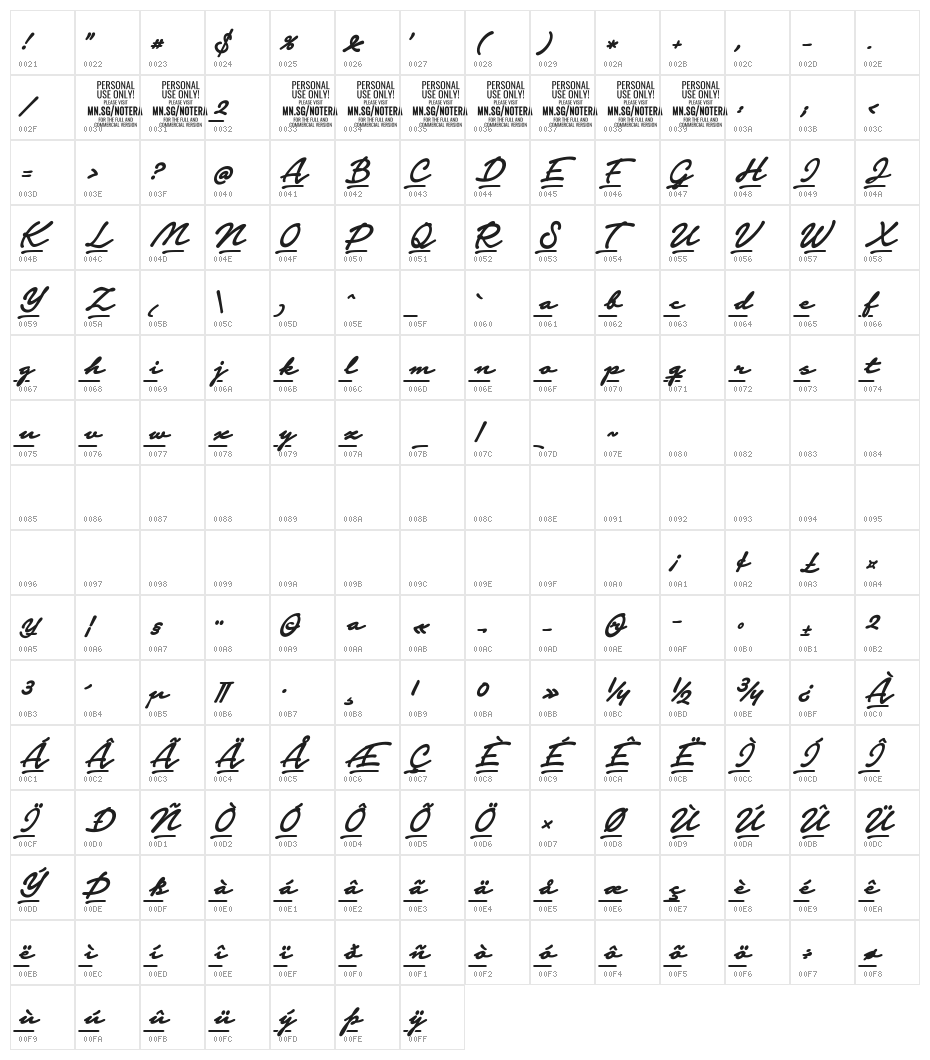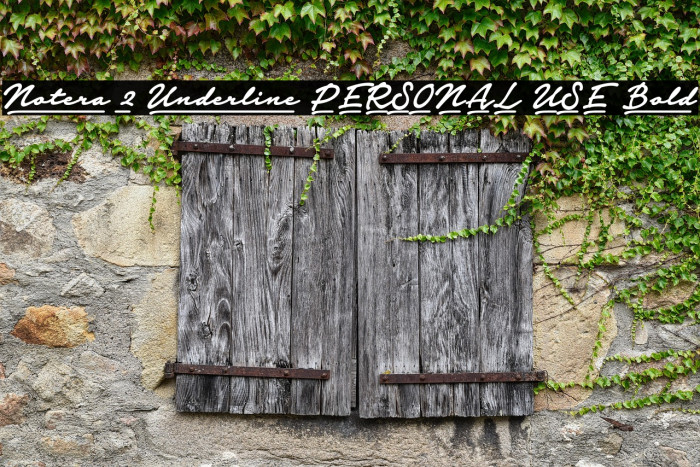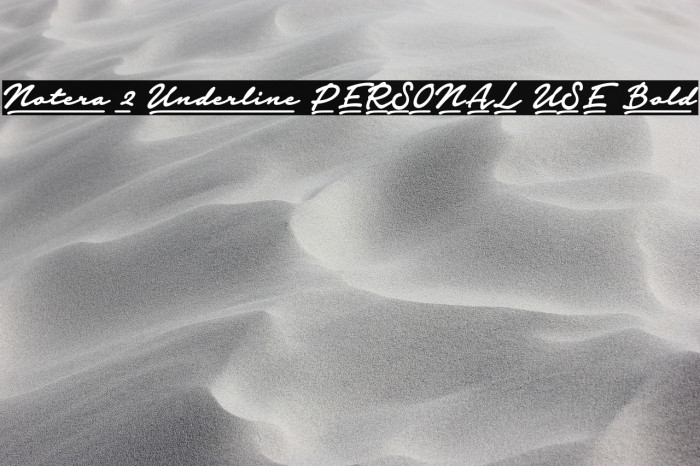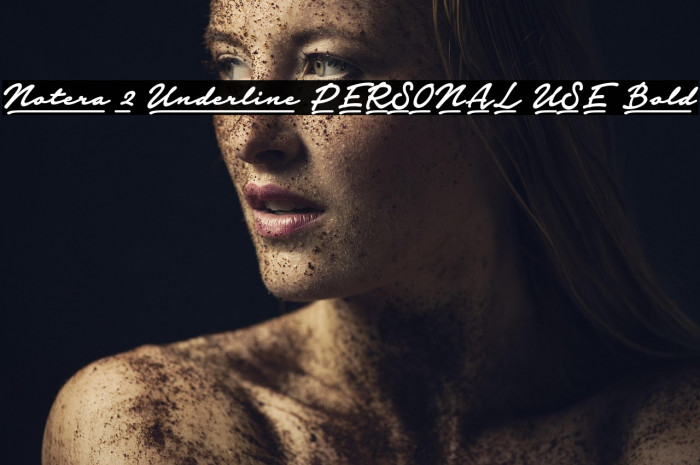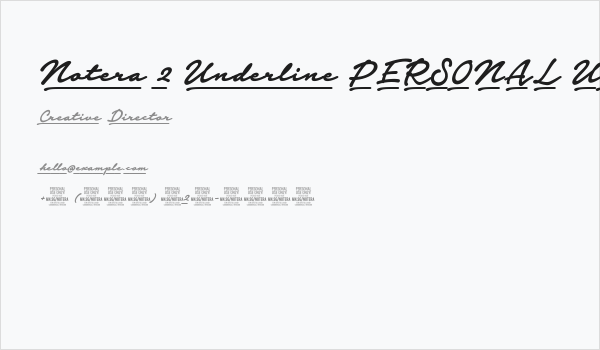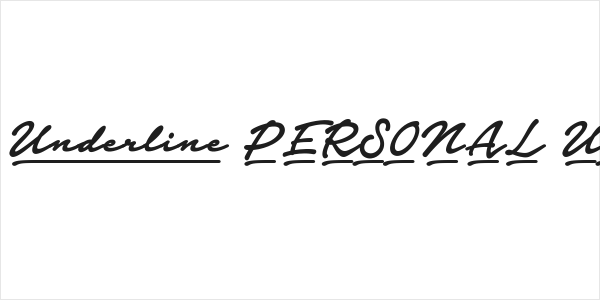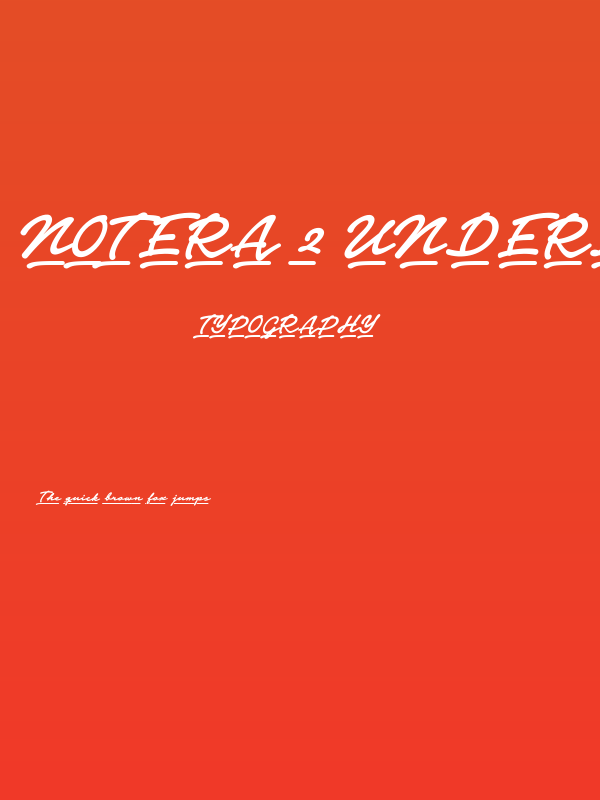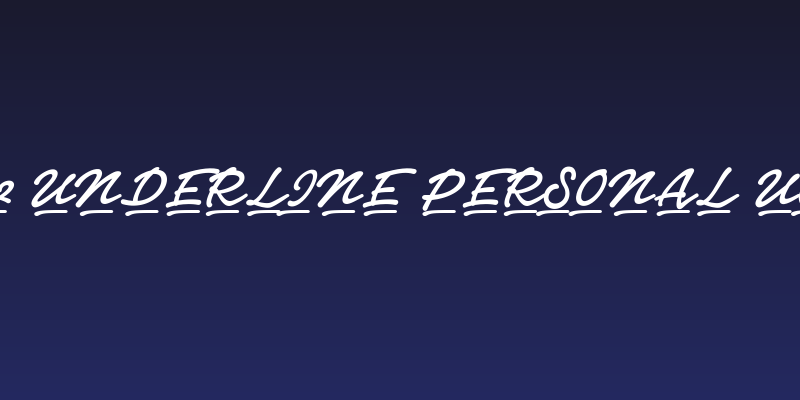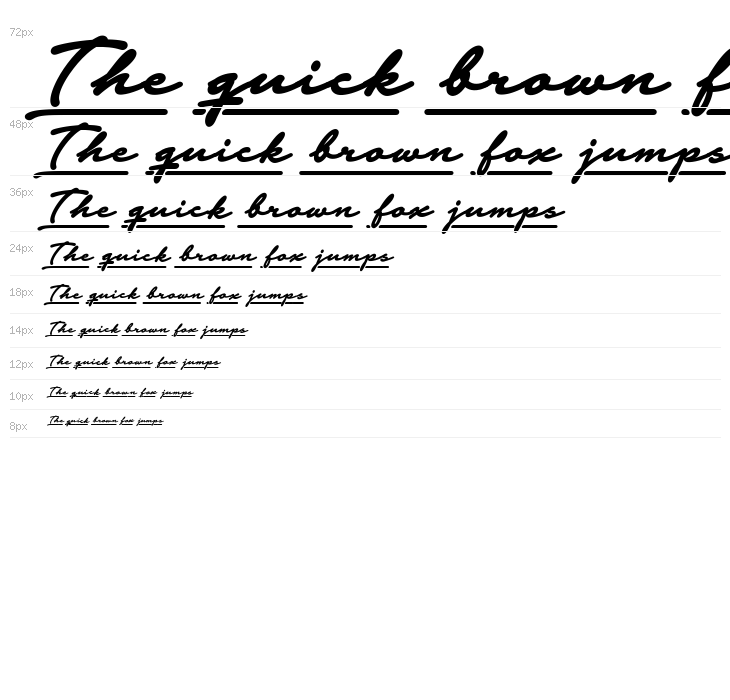
Notera 2 Underline PERSONAL USE Bold Font
Notera 2 Underline PERSONAL USE Bold Description
This font features a bold, cursive style with a distinctive underline beneath each character, giving it a dynamic and flowing appearance. The uppercase and lowercase letters are elegantly connected, creating a sense of continuity and movement. The strokes are thick and consistent, contributing to its bold presence. The special characters maintain the same cursive and underlined style, ensuring uniformity across all glyphs. This font is ideal for making a statement with its eye-catching and stylish design.